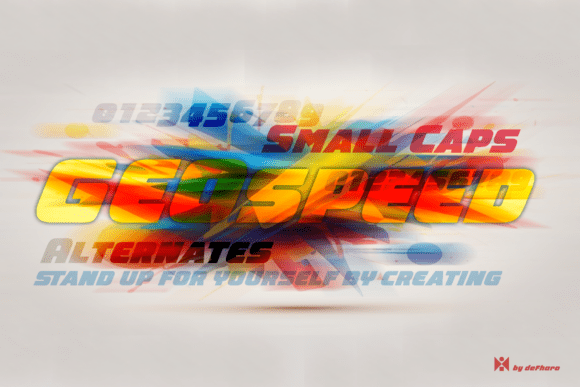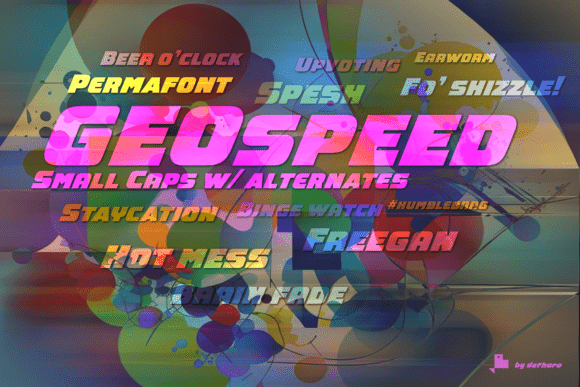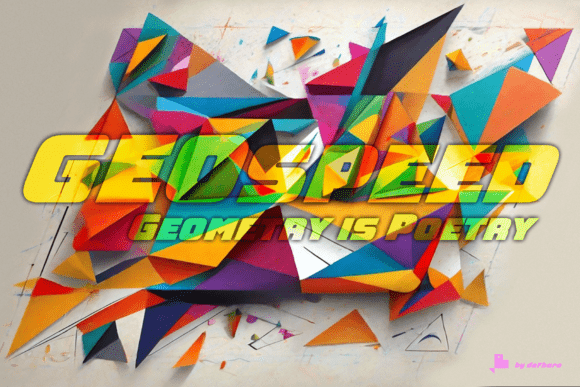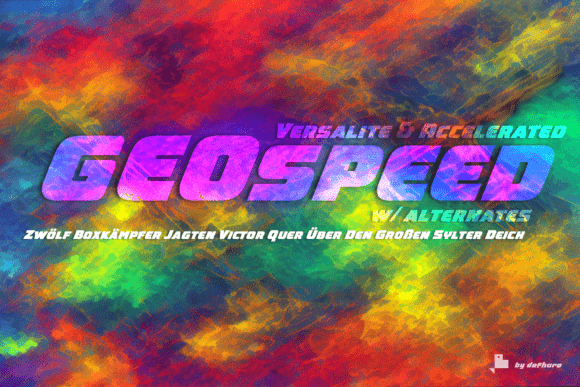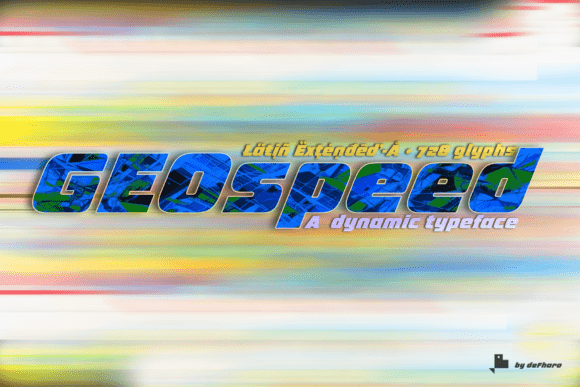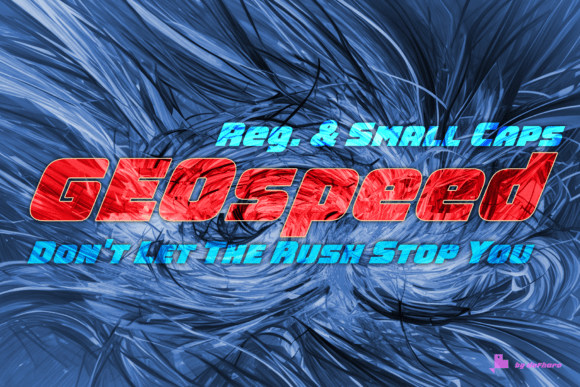
Introducing GEOspeed Font: Redefining Design Standards
In the world of typography, a new star has emerged: GEOspeed. This innovative typeface is redefining design standards by fusing robustness with elegance, making it the perfect choice for designers and crafters looking to make a statement. GEOspeed is more than just a font – it’s a visual expression of modernity, dynamism, and avant-garde style.
Two Styles, One Powerful Visual Identity
GEOspeed features two unique styles: Regular and Versalite. These two styles work together to provide a powerful visual identity that can meet all your creative needs. The Regular version of GEOspeed offers solidity and clarity, making it ideal for body text, while the Versalite version adds a bold and distinctive touch, perfect for headlines and titles.
With GEOspeed, you can explore an unlimited range of visual expressions. The Regular style provides a clean and classic look, while the Versalite style adds a touch of sophistication and elegance. Together, these styles allow you to create a cohesive visual brand that communicates your message with clarity and impact.
The Essence of Modern Visual Expression
GEOspeed is not just a typeface – it’s a statement of progression and avant-garde style. With a 22-degree incline, GEOspeed embodies movement and dynamism, capturing attention and carrying your message into the future. Each letter is a geometric masterpiece, creating a contemporary look that highlights strength and elegance.
The sans serif geometry of GEOspeed sets a new standard for modernity. The clean lines and minimalist aesthetic of this typeface make it perfect for use in advertising, posters, banners, and other visual materials where a bold and modern look is desired.
Design Features and Benefits
GEOspeed offers a range of design features and benefits that make it an ideal choice for designers and crafters. Some of the key features include:
- Unique 22-degree incline: GEOspeed’s distinctive incline gives it a dynamic and avant-garde feel that’s perfect for making a statement.
- Sans serif geometry: The clean lines and minimalist aesthetic of GEOspeed make it perfect for use in modern visual materials.
- Two unique styles: The Regular and Versalite styles of GEOspeed offer a range of creative possibilities, from clean and classic to bold and distinctive.
- Geometric masterpiece: Each letter in GEOspeed is a geometric masterpiece, creating a contemporary look that highlights strength and elegance.
Use Cases and Applications
GEOspeed is a versatile typeface that can be used in a range of applications, including:
- Advertising: GEOspeed’s bold and modern look makes it perfect for use in advertising, from billboards to online ads.
- Posters and banners: The eye-catching style of GEOspeed makes it ideal for use in posters and banners, where a bold and attention-grabbing look is desired.
- Branding and identity: GEOspeed’s unique style and versatility make it perfect for use in branding and identity projects, from logos to business cards.
In conclusion, GEOspeed is a game-changing typeface that redefines design standards. With its unique blend of robustness and elegance, GEOspeed is the perfect choice for designers and crafters looking to make a statement. Whether you’re working on an advertising campaign, designing a poster, or creating a brand identity, GEOspeed offers a range of creative possibilities that can help you communicate your message with clarity and impact.